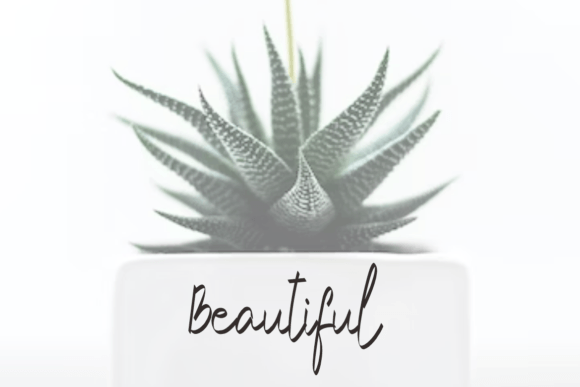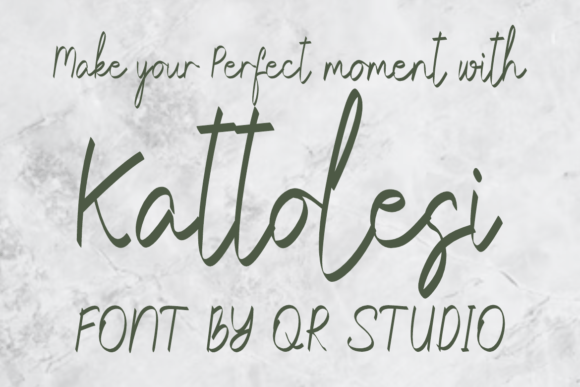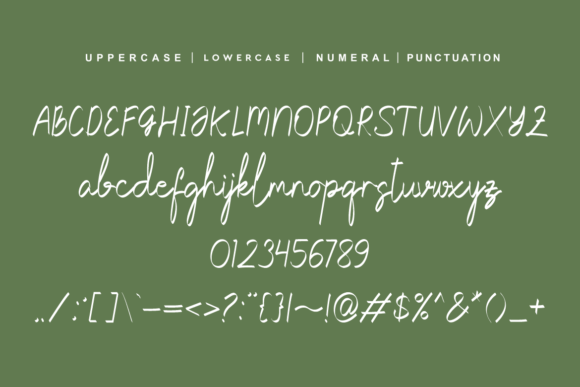
Introduction to Kattolesi Font
Have you ever stared at a blank canvas, wondering where to start your next creative project? The blank page can be daunting, but with the right tools, the possibilities become endless. For designers, finding the perfect font can be the difference between a great idea and a mediocre one. That’s where the Kattolesi Font comes in – a bold and authentic display font that’s sure to elevate your design game.
With its versatility and high-quality design, the Kattolesi Font is the perfect addition to any design resource. Whether you’re working on a logo, a sport-themed project, or something entirely different, this font is sure to shine. And the best part? It’s available for free download, complete with an OTF and TTF file, so you can use it with ease.
Key Features of Kattolesi Font
- Unique, hand-drawn style with a transparent background, perfect for adding a personal touch to designs.
- Includes a comprehensive character set with over 1000 glyphs, making it suitable for a wide range of languages and applications.
- Perfect for graphic designers, illustrators, and artists looking for a distinctive and versatile font to elevate their creative projects.
Honest Review: Kattolesi Font
I recently stumbled upon the Kattolesi Font, and I must say, it’s been a game-changer for my design projects. This font is a fantastic addition to any design resource, offering a unique and modern aesthetic that’s perfect for creative projects.
One of the things that stands out about the Kattolesi Font is its high quality and versatility. It’s available in a range of weights and styles, making it easy to use in a variety of contexts, from logos and branding to digital displays and print materials. The font is also available as a free download, which is a major plus for designers on a budget.
Here are some of the key features that I love about the Kattolesi Font:
- ✨ High-quality design that’s perfect for modern creative projects
- ✨ Available in a range of weights and styles for maximum versatility
- ✨ Transparent background makes it easy to use with any design
One potential limitation of the Kattolesi Font is that it may not be suitable for very formal or traditional design projects. The font’s modern aesthetic may clash with more conservative design styles.
Overall, I’m really impressed with the Kattolesi Font, and I would highly recommend it to any designer looking for a high-quality, versatile font for their creative project. ⚠️ Just be aware of its limitations, and use it in contexts where its modern aesthetic will shine.
Tips for Getting the Most Out of Kattolesi Font
- Use a transparent background to make the font more versatile and easy to use in different designs.
- Experiment with different font sizes and styles to find the perfect fit for your creative project.
- Combine the Kattolesi Font with other design elements, such as images and graphics, to create visually appealing designs.
Common Use Cases for Kattolesi Font
- Headings and titles in presentations and documents.
- Body text in social media graphics and website content.
- Labels and captions in infographics and charts.